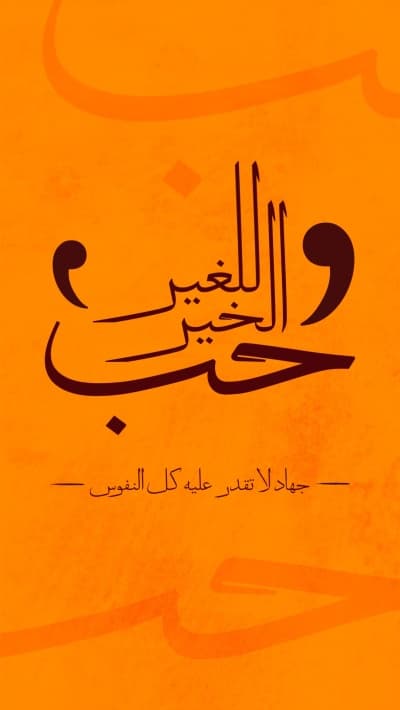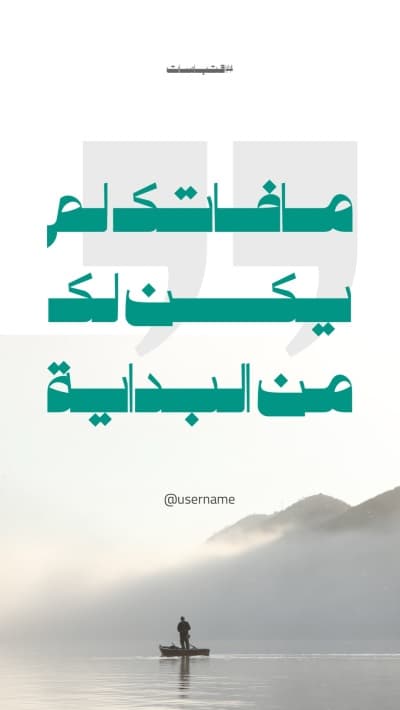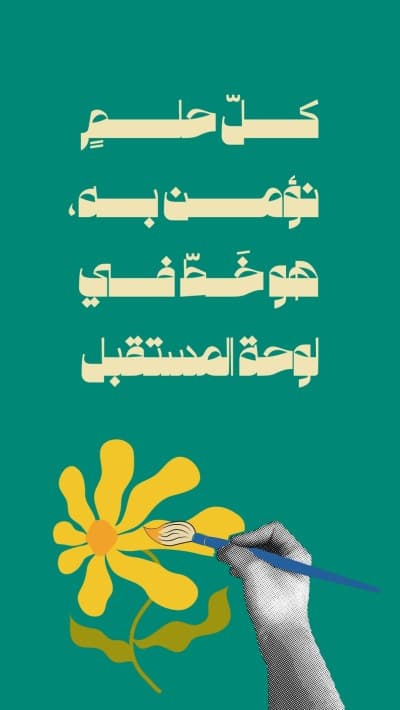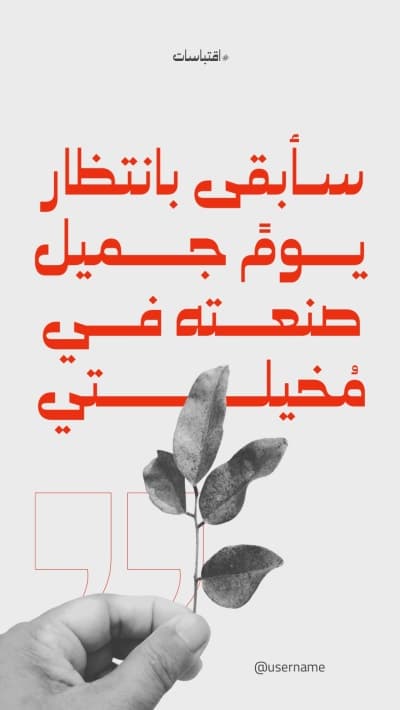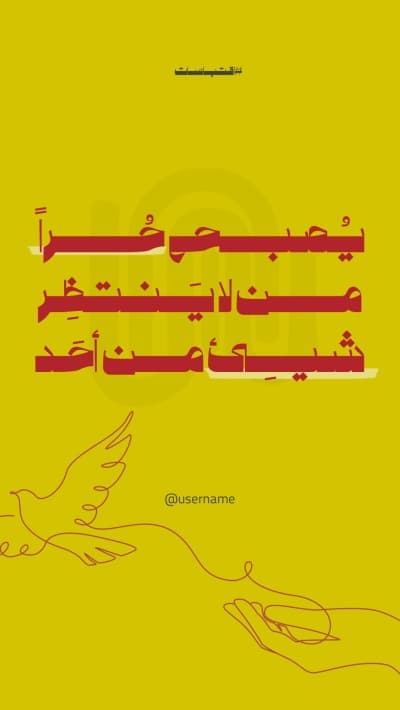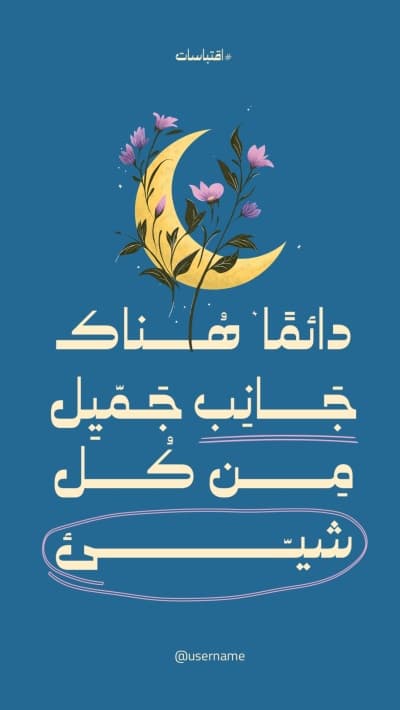
Distinctive Arabic Fonts for Headlines
Distinctive Arabic Fonts
When do you want a display font?
When the text is short and it is the design. A two-word headline can carry a face with real personality, while a paragraph needs something quieter that reads without effort.
What can you design?
• Headlines and wall pieces in a font with character
• Names and wordmark-style logos
• Short lines for posts
• Designs in Thuluth, Diwani and Kufic
• Text in modern faces for contemporary brands
Can you control size and spacing?
What makes a good quote design?
The line is the whole design, so set it large and centred with generous space around it. Break the lines at the sense rather than where the space runs out, so it reads the way it would be said, and emphasise one word in a different colour or weight rather than the whole sentence. Andalusi's quote templates come with the text area and spacing set.
Which font suits a quote design?
A clear face at medium weight suits best, since the line is read in full; a decorative one suits a single word within it rather than the whole sentence. Use one size for the quote and a smaller one for the attribution, and set the lines further apart than usual, since short text needs room to breathe. Andalusi's library sorts fonts for exactly this.
Which colours suit a quote design?
Two are enough: a calm background and text that contrasts with it clearly. Plain or gradient grounds work better than photographs, since an image competes with the words, and if you do use one, fade it behind the text. Match the text colour to your account's identity so your designs are known by their colour. Andalusi has ready palettes for quote designs.
Which sizes suit a quote design?
Square for the post, vertical for stories, and a phone wallpaper for anyone who wants to keep it. Quote designs are saved and reshared more than any other kind, so keep a high-quality version that does not degrade when forwarded on, and put your handle in small type in the corner. Andalusi exports all three from the same design.